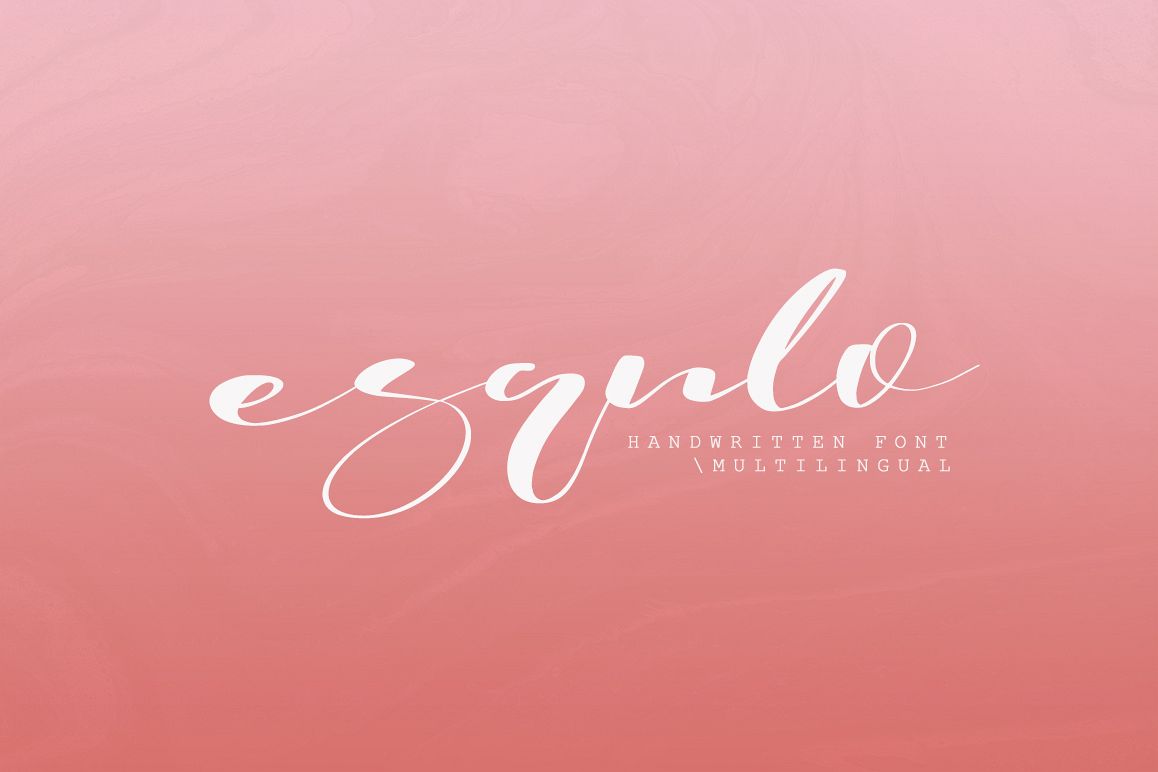
Esqulo
Introducing Esqulo
Handwritten font with multilingual support.
Latin & Cyrilic support.
Esqulo  is modern font, every single letters have been carefully crafted to make your text looks beautiful. With modern script style this font will perfect for many different project ex: logo, photography, watermark, quotes, blog header, poster, wedding, branding, logo, fashion, apparel, letter, invitation, stationery, etc.
Esqulo  also includes Regular and Bold, full set of uppercase and lowercase letters, multilingual symbols, cyrillic symbols, numerals, punctuation.
• UpperCase & Lowercase
• Numerals & Punctuations
• Multilingual characters (AÀÁÂÃÄÅCÇDÐEÈÉÊËIÌÍÎÏNÑOØÒÓÔÕÖUÙÜÚÛWYÝŸ?ŸÆŒßÞàáâãäåæçèéêëìíîïðñòóôõöøùúûüýÿ)
• Cyrillic support